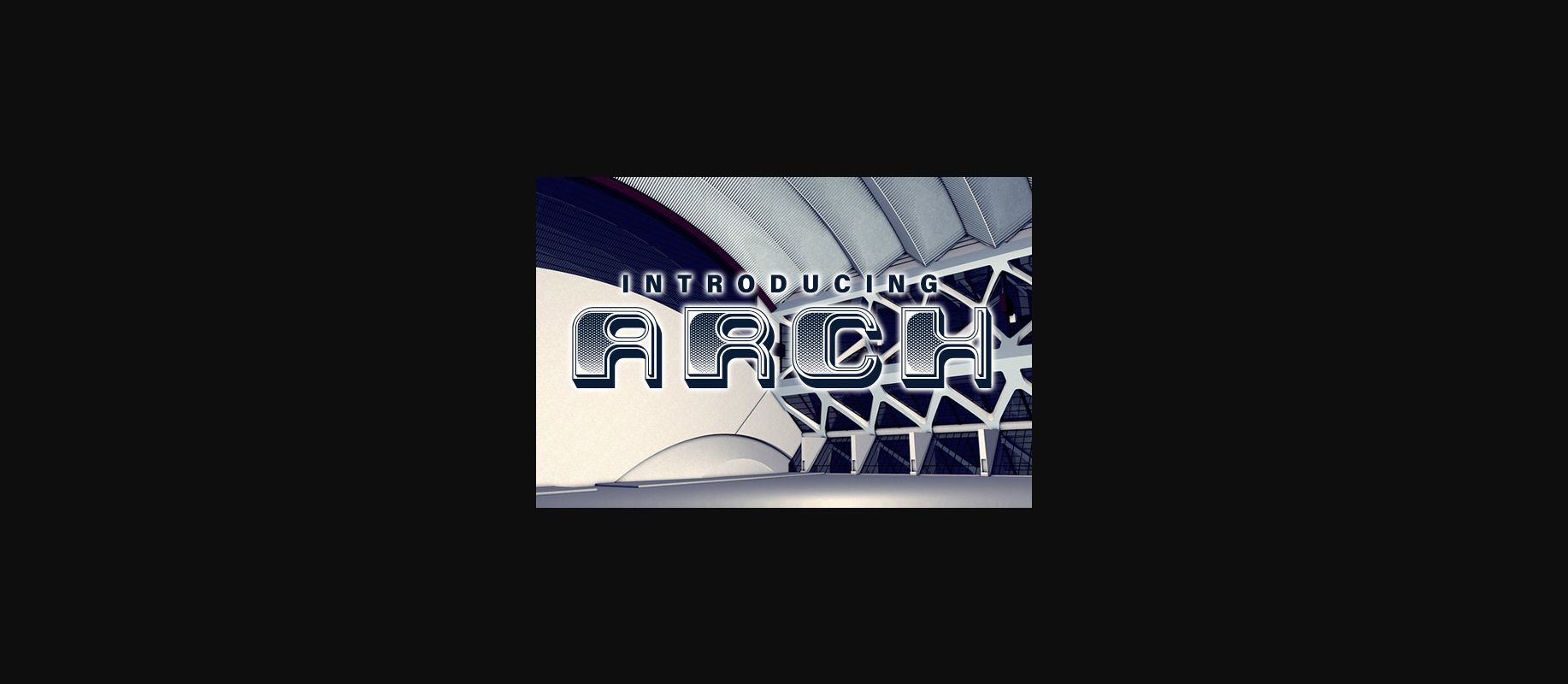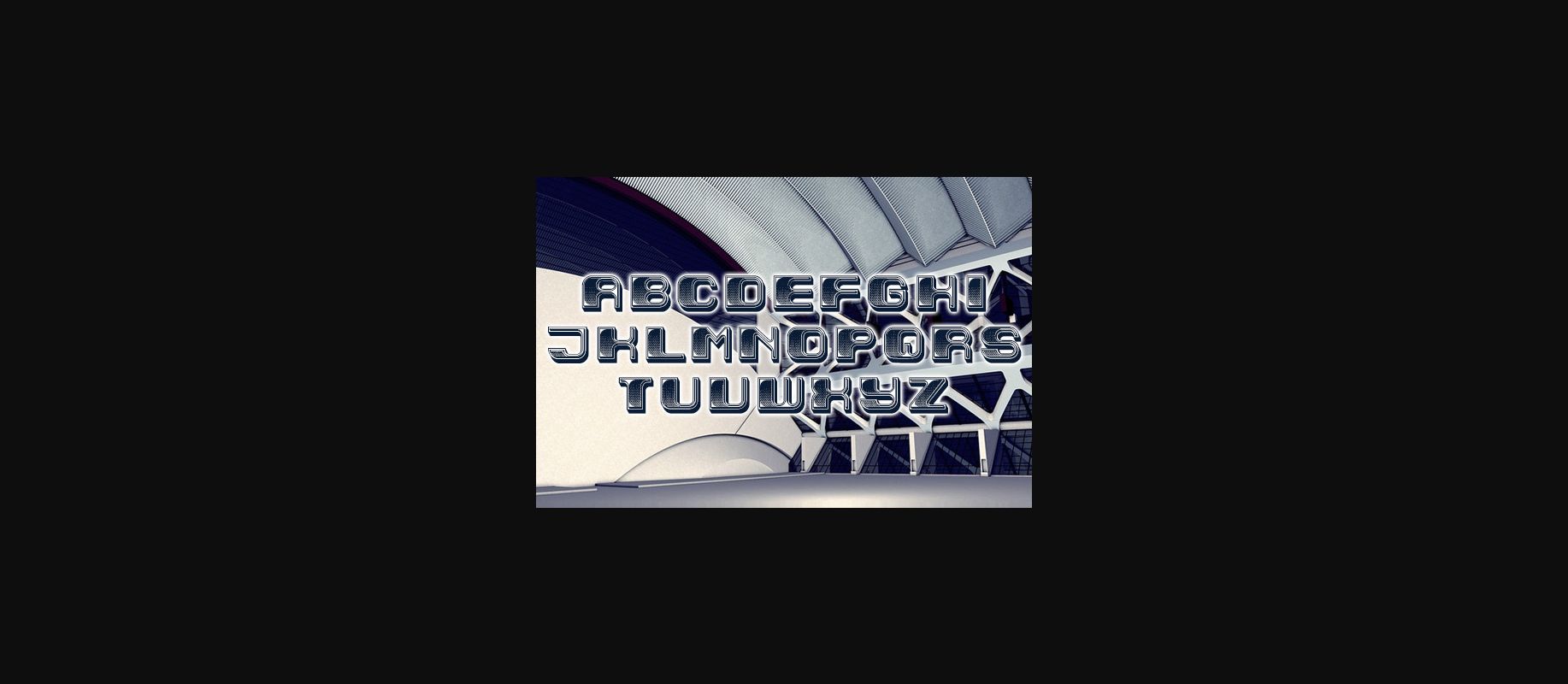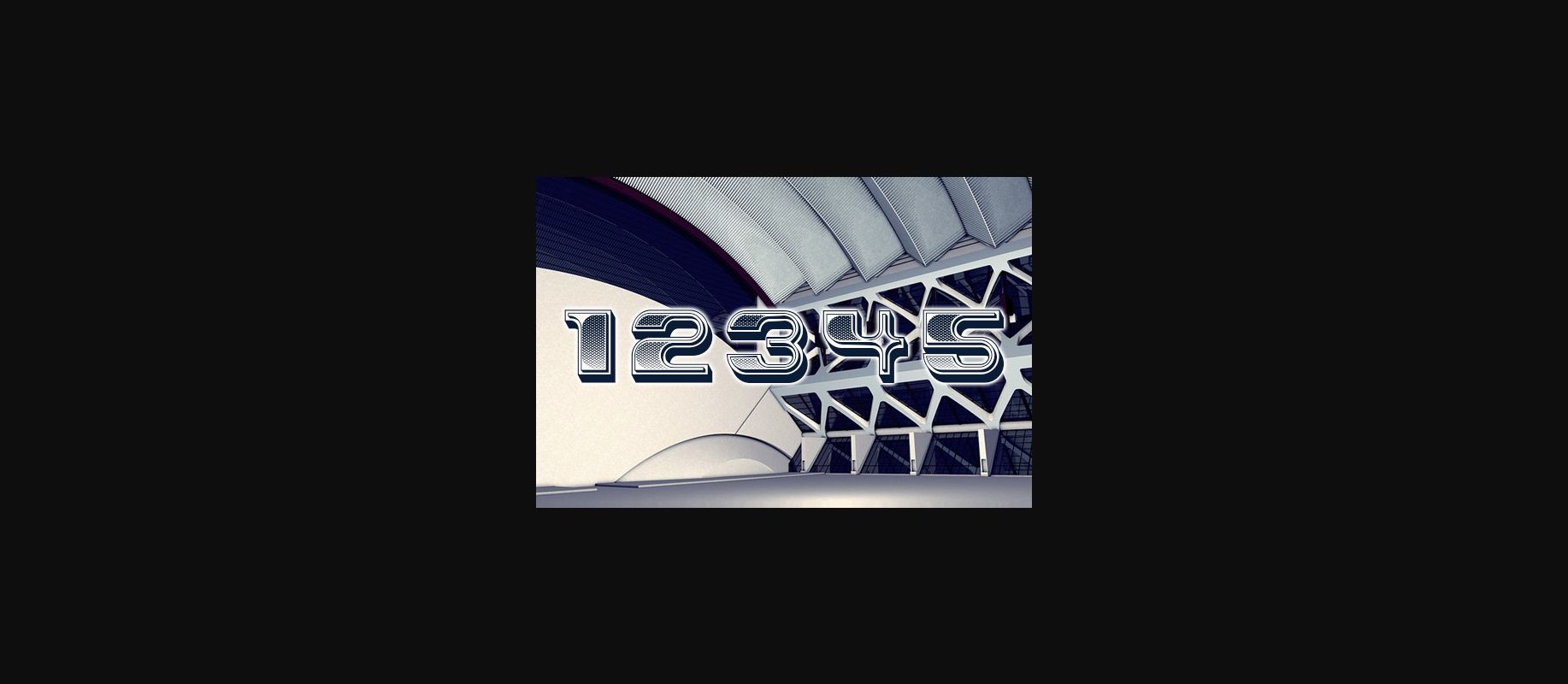
HomeDecorative FontsArch Font Decorative Fonts Arch Font FacebookTwitterPinterestWhatsApp 1 of 5 ... Arch Font Poster 2... Arch Font Poster 3... Arch Font Poster 4... Arch Font Poster 5... About Arch Font Arch is a stylish 3D font that will make Your designs look fantastic. Use this font on posters, flyers, and t-shirts. DOWNLOAD NOW 163 0 People also explored Milena Font Behind Brown Eyes Font Eastern Ranger Font Camden Font Santa Christmas Font Vitamin Font Memo Wish Font Cupid Font Rukia Font Atoney Aloysian Font Sweet Samosa Font TagsArchArch Font Previous articleFinestra FontNext articleNormaund Font LEAVE A REPLY Cancel reply Comment: Please enter your comment! Name:* Please enter your name here Email:* You have entered an incorrect email address! Please enter your email address here Website: Save my name, email, and website in this browser for the next time I comment. Unlock Endless Creativity with the FREE September Clipart Huge Bundle (Valued at $700!) Personal Use Free Mika Personal Use Free Read more Dealerplate California Personal Use Free Read more Kaylafiz Personal Use Free Read more Bolt Electric Personal Use Free Read more BLOG The 10 Best Handwriting Fonts to Add Personality to Your Designs 10 of the Best Handwriting Fonts for Adding Personality to Your Designs There will undoubtedly be no other better choice than handwriting fonts to give... Exploring Font Trends Free Fonts Risk: Why Free Fonts Can Be Dangerous for Designers Transform Your Website: Elevate Your Typography with 7 Best Web Font Generators